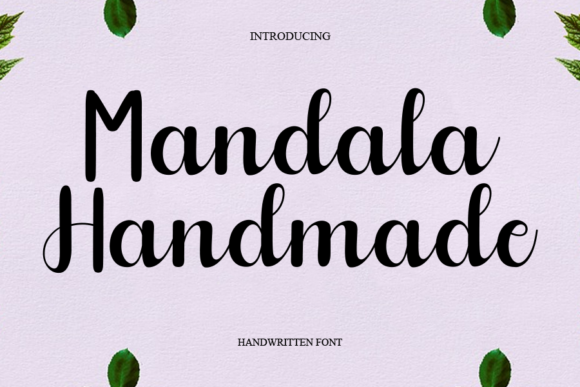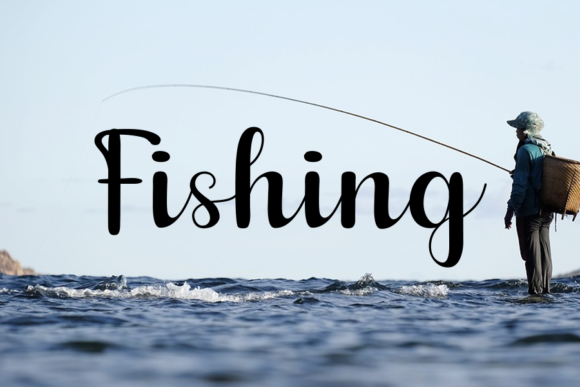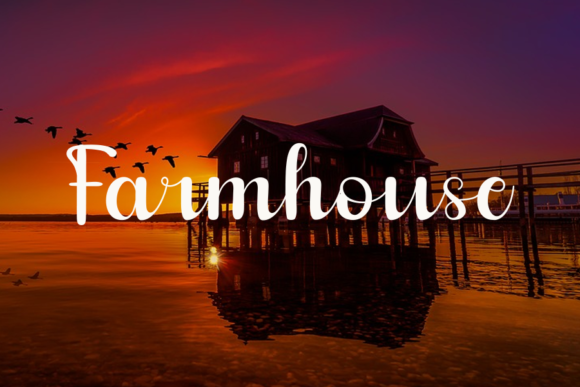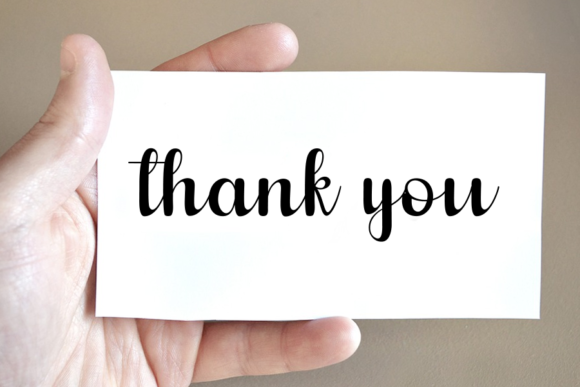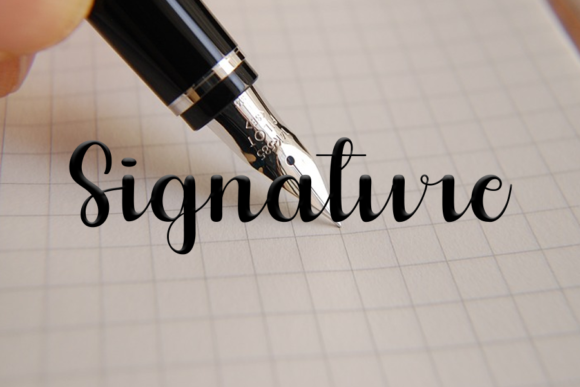
Mandala Handmade Font
About Mandala Handmade Font
Mandala Handmade is a lovely script font featuring charming, playful characters that seem to dance along the baseline. Add this font to your most creative ideas, and notice how it makes them stand out!